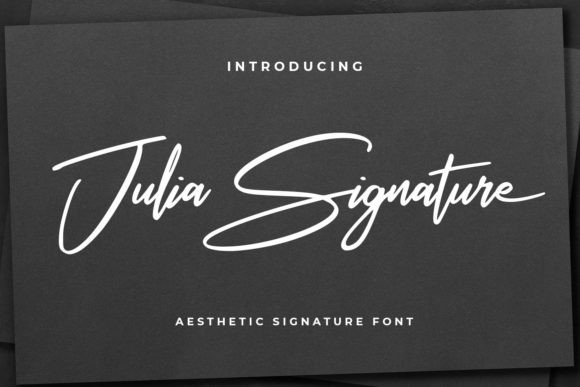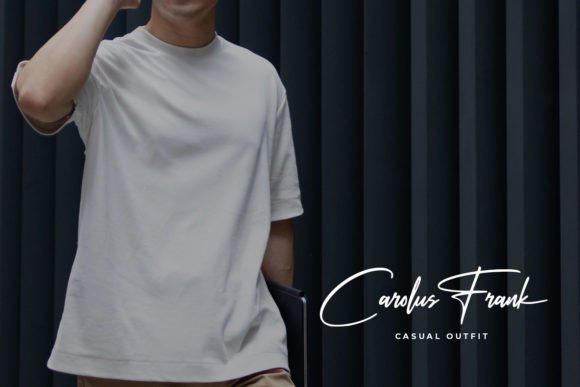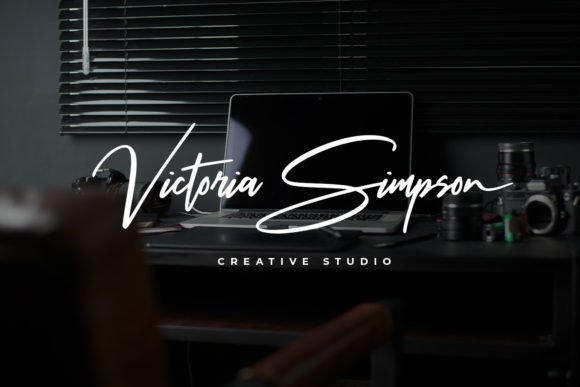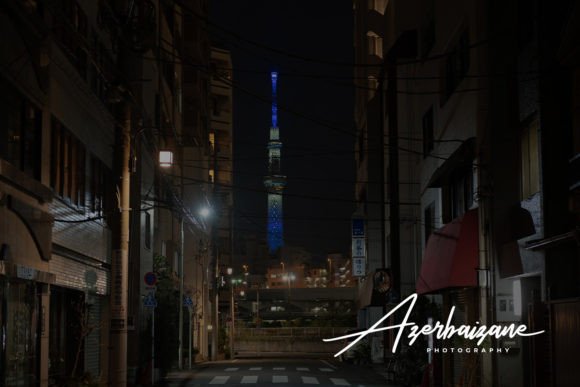
Julia Signature Font
About the Julia Signature Font
Make a bold statement with Julia Signature Font, a powerful and memorable font. JULIA SIGNATURE
– aesthetic signature font-
JULIA SIGNATURE is natural handwritten font.
It is great for branding, quotes, logos, t-shirt designs, tote bag designs, cards, banners, social media, and more.
It is completed with an ending swash. You can add an underscore twice after lowercase to access it. This font is PUA encoded which means you can access all of the amazing glyphs and ligatures with ease!
Julia Signature’s flowing, natural style is ideal for branding projects requiring a personal touch, particularly logos, short headlines, and social media graphics. It also excels in packaging design for boutique products or handcrafted goods. However, its script nature makes it unsuitable for large blocks of text or body copy; readability suffers in extended use. Avoid using it for UI elements or situations requiring high legibility.
Pairing Julia Signature effectively depends on the desired effect. For a more balanced and sophisticated look, consider pairing it with a clean sans-serif like Montserrat or a classic serif like Garamond. To maintain a consistent hand-drawn feel, a playful, slightly rounded sans-serif such as Lato could work well. For a more modern contrast, a geometric sans-serif font would create an interesting juxtaposition.
The overall personality of Julia Signature is elegant yet approachable, conveying a sense of warmth and authenticity. It’s best suited to brands that emphasize handcrafted quality, personal connection, or a creative, artistic spirit.